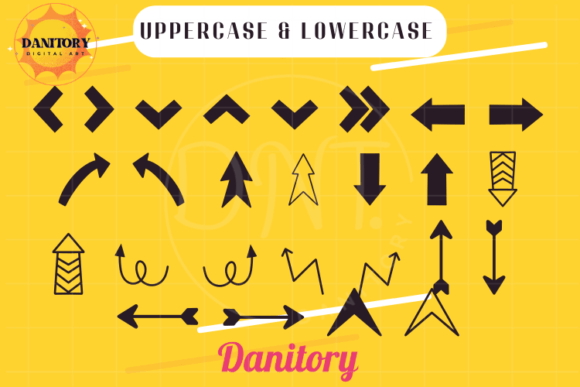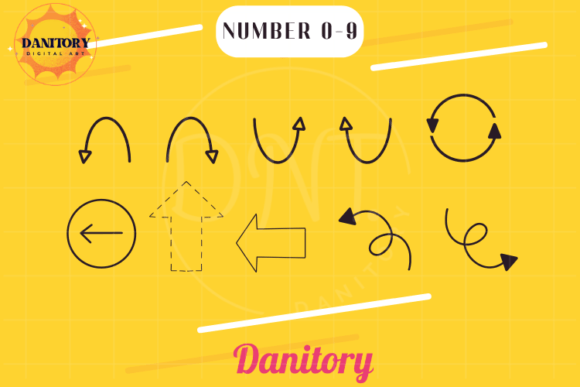
Unlock Creative Potential with Arrow Font: The Ultimate Dingbats Font for Designers and Crafters
Are you a designer, crafter, or DIY enthusiast looking for a versatile and fun font to elevate your projects? Look no further than Arrow Font, a dingbats font that has taken the crafting and design world by storm. In this article, we’ll dive into the world of Arrow Font, exploring its features, uses, and benefits, and why it’s become a favorite among crafty enthusiasts and designers alike.
What is Arrow Font?
Arrow Font is a unique and creative dingbats font that features a wide range of arrow symbols, shapes, and designs. Unlike traditional fonts, dingbats fonts like Arrow Font offer a collection of graphical symbols that can add visual interest and personality to any project. With its extensive library of arrow designs, Arrow Font is perfect for adding a touch of whimsy and fun to your craft projects, designs, planners, diaries, activity books, and more.
The Versatility of Arrow Font
One of the standout features of Arrow Font is its versatility. Whether you’re creating a handmade card, a customized planner, or a decorative journal page, Arrow Font can add a touch of personality and style to your project. Its extensive range of arrow designs makes it easy to find the perfect symbol to match your project’s theme or aesthetic. From simple and minimalist to bold and playful, Arrow Font has something for everyone.
Uses for Arrow Font
So, what can you do with Arrow Font? The possibilities are endless! Here are just a few ideas to get you started:
- Craft Projects: Add a personal touch to your handmade cards, gift tags, and scrapbooking projects with Arrow Font’s unique arrow designs.
- Designs: Use Arrow Font to create eye-catching graphics, logos, and branding materials for your business or personal projects.
- Planners and Diaries: Add a touch of personality to your planners, diaries, and journals with Arrow Font’s decorative arrow symbols.
- Activity Books: Create engaging and interactive activity books for kids or adults with Arrow Font’s fun and playful arrow designs.
Benefits of Using Arrow Font
So, why choose Arrow Font for your projects? Here are just a few benefits of using this versatile dingbats font:
- Customization: With Arrow Font, you can customize your projects with a wide range of arrow designs to match your unique style.
- Time-Saving: Arrow Font saves you time and effort by providing a vast library of pre-designed arrow symbols.
Tips and Tricks for Using Arrow Font
To get the most out of Arrow Font, here are a few tips and tricks to keep in mind:
- Experiment with Different Sizes: Play around with different font sizes to create visual interest and hierarchy in your projects.
- Mix and Match: Combine Arrow Font with other fonts and design elements to create unique and eye-catching projects.
- Use as a Decorative Element: Use Arrow Font as a decorative element to add a touch of personality to your projects.
| Font Name | Arrow Font |
| Author | danita.kukkai |
Arrow Font is a fun and useful dingbats font that offers a world of creative possibilities for designers and crafters. With its versatility, ease of use, and extensive range of arrow designs, it’s no wonder Arrow Font has become a favorite among crafty enthusiasts and designers alike. Whether you’re creating handmade cards, customized planners, or decorative journal pages, Arrow Font is the perfect addition to your design toolkit. So why wait? Unlock your creative potential with Arrow Font today!